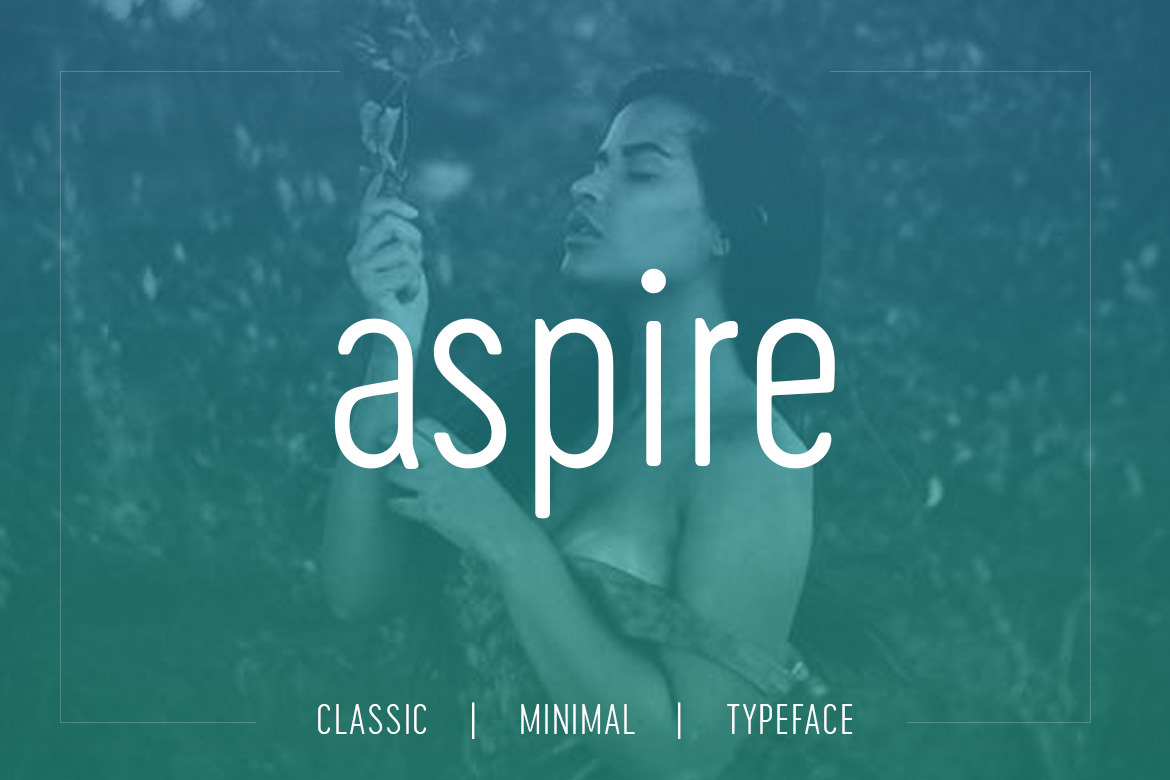
Aspire Sans Typeface
Aspire Sans is a classic and Minimal Sans Serif typeface, Aspire Sans can keep the minimalism at its level best and is a perfect choice for Creative and Classic Typography Designs. The pack includes OTF, TTF and Web Fonts (all EOT, SVG, TTF, WOFF included).
Font Designed and Crafted by Glen Mathew ( fontento )_, Distributed by Webhance studio